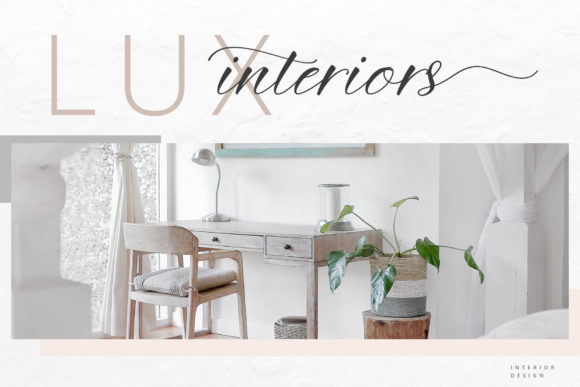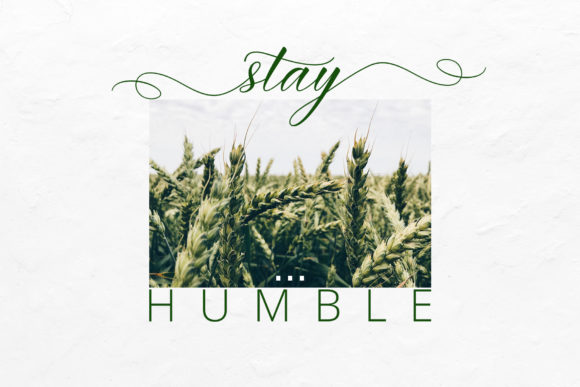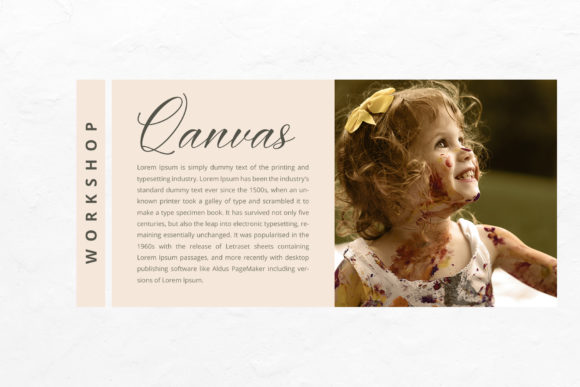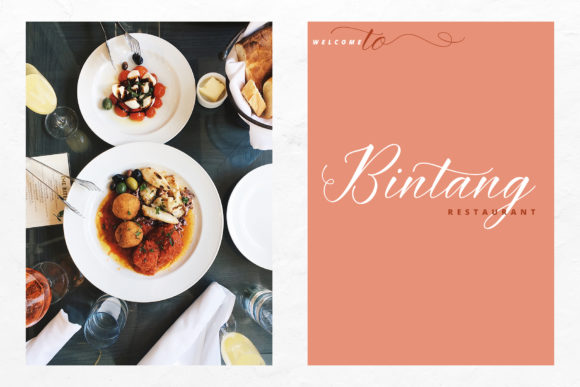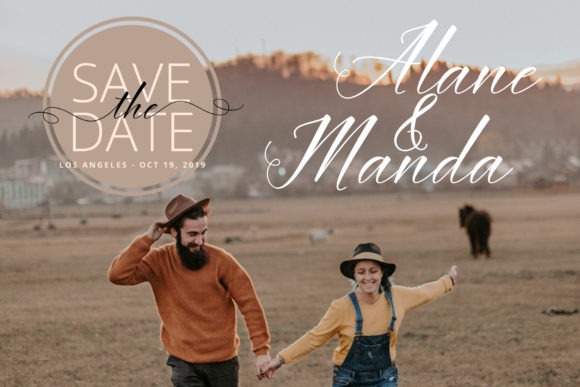
Introduction to Imata Script Font
Imata is a simply stunning and effortless script with a modern feel.
Get inspired by its unique charm .
Key Features of Imata Script Font
Why Choose Imata Script Font?
Imata Script Font offers exceptional quality and versatility, making it a valuable addition to your design toolkit. Whether you’re creating for personal projects or commercial use, Imata Script Font delivers professional results.